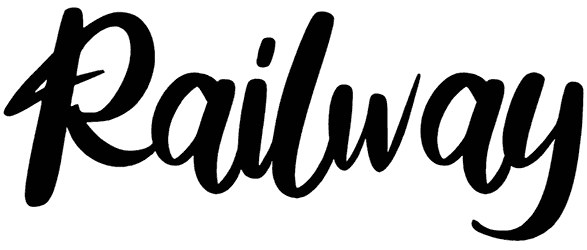
Railway Font
Railway is a contemporary script font that has an elegant and refined appearance. The adaptability of this font makes it ideal for use in a wide variety of contexts, including logos, blog headlines, posters, invitations,…
Railway is a contemporary script font that has an elegant and refined appearance. The adaptability of this font makes it ideal for use in a wide variety of contexts, including logos, blog headlines, posters, invitations, stationery, and many other related projects.